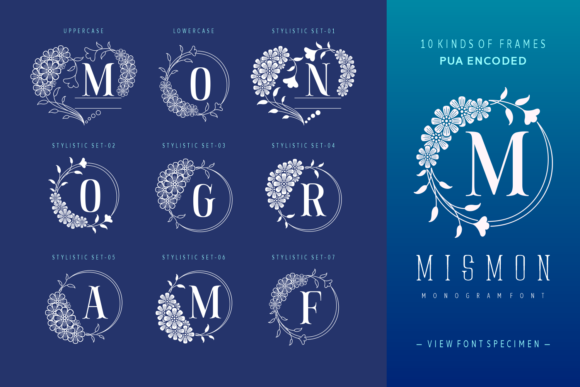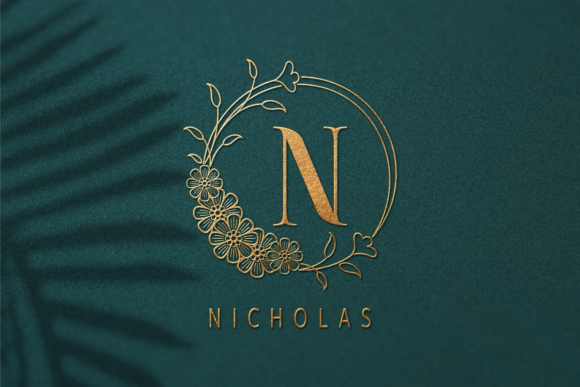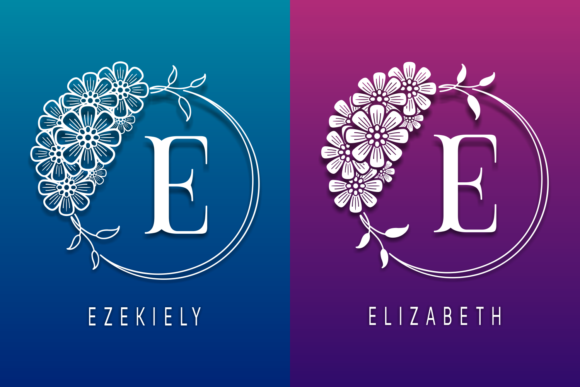
Introduction to Mismon Font
Mismon is a dainty and unique decorative font.
Add this romantic and lovely looking font to each of your love letters, wedding invitations or favorite design ideas, and you will be astounded by the outcome .
Mismon Font offers exceptional quality and versatility, making it a valuable addition to your design toolkit. Whether you’re creating for personal projects or commercial use, Mismon Font delivers professional results.